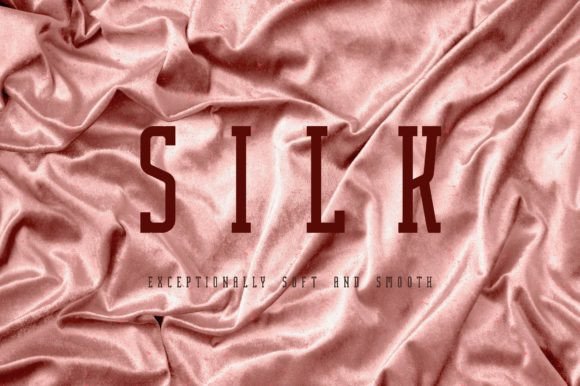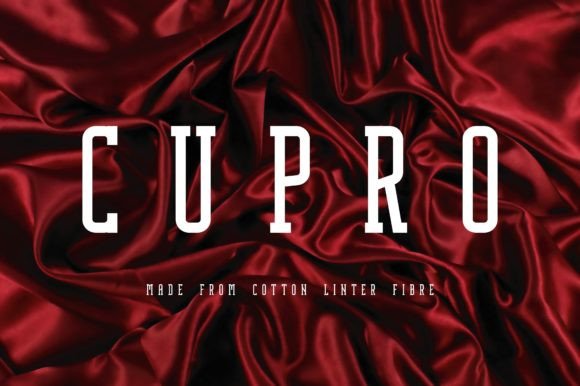
Sleek Font
SLEEK FONT SPECIMEN
Sleek is an elegant, minimalist, clean, condensed, and tall slab serif. It has a compressed feel and it fits wonderfully on large areas and when used in titles. Stunning results can be easily achieved by using an elegant clean background that has a complementary color or any contrasting color.
It’s suitable for modern designs such as designs for magazine covers, social posts, packaging, perfume, and much more!